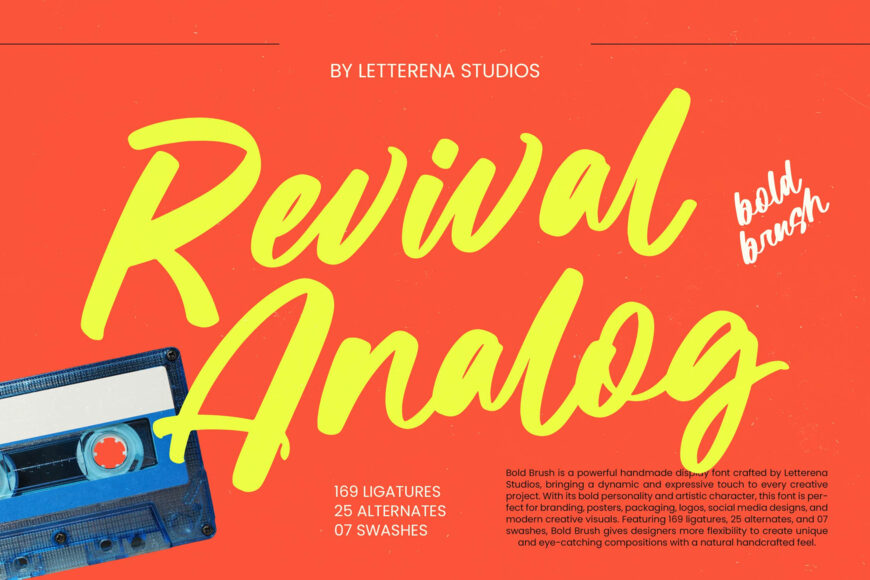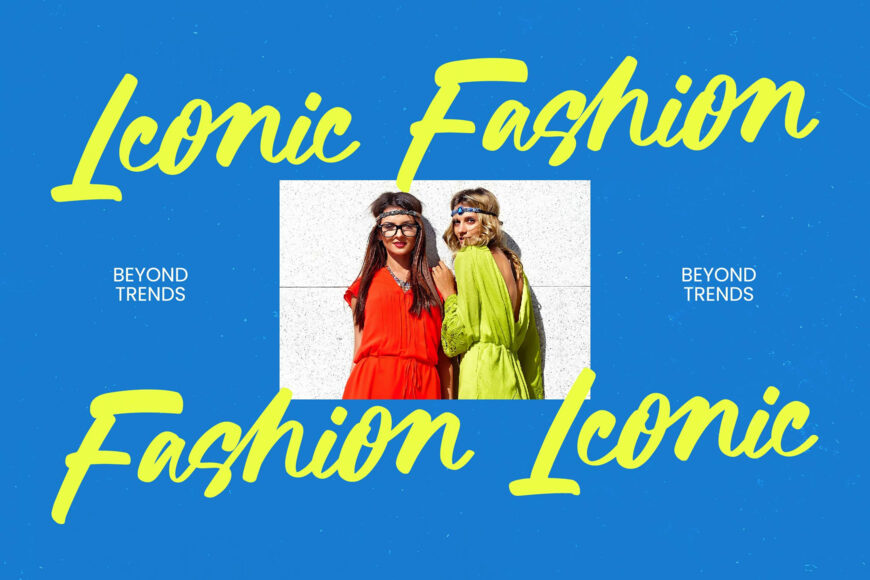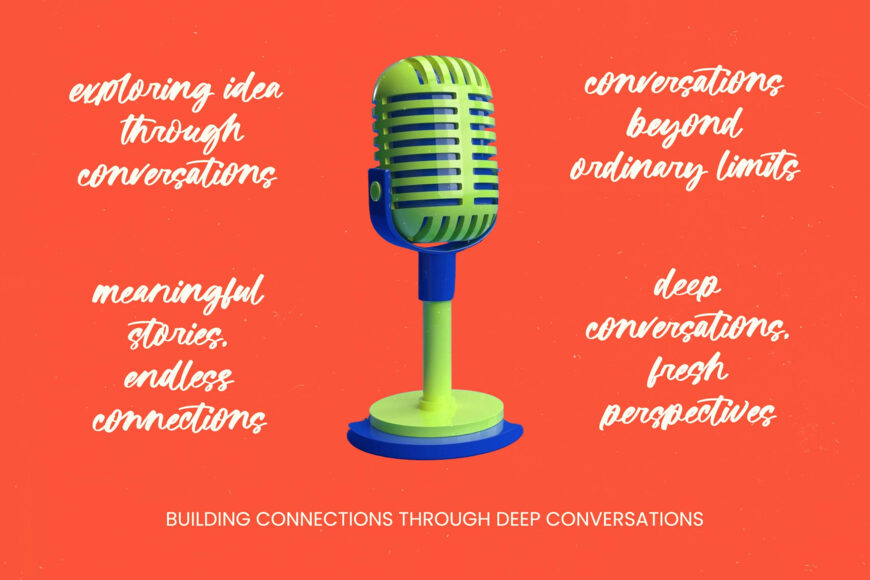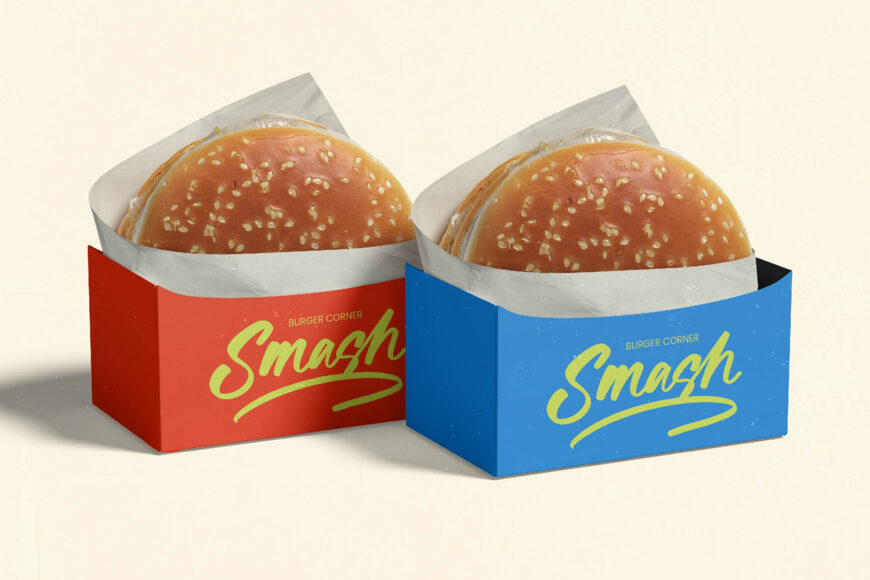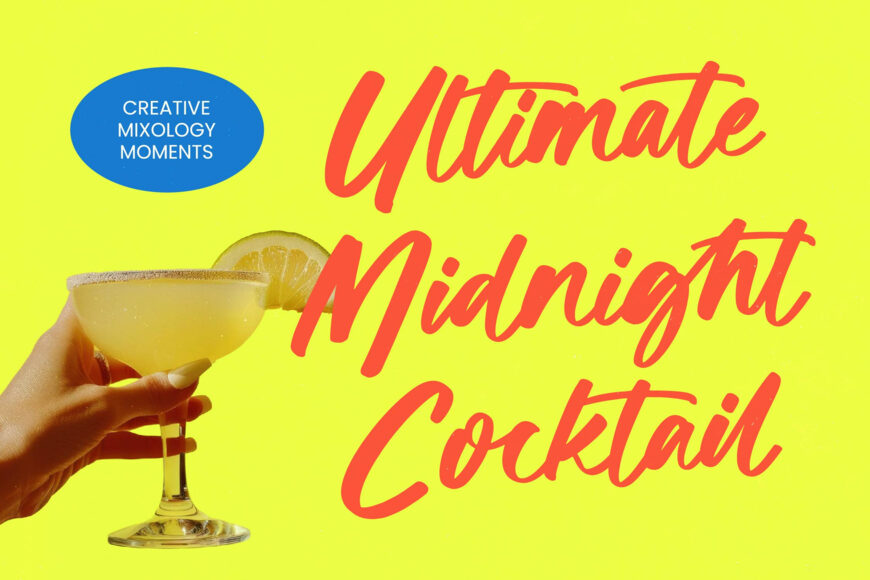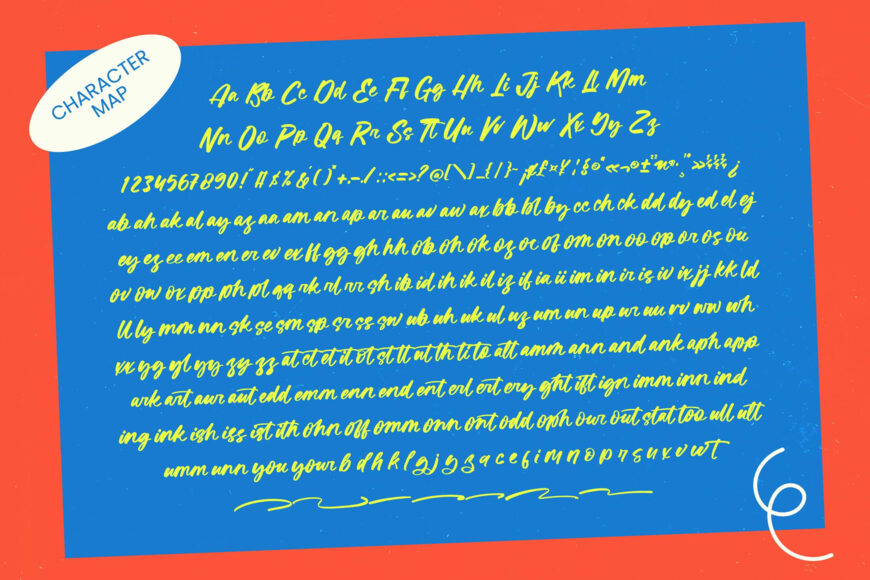
Ignite your designs with Revival Analog, a handcrafted bold brush display font by Letterena Studios. Combining organic brushwork with modern-vintage character, it brings bold energy, movement, and personality to every layout.
Ideal for lifestyle branding, luxury packaging, cinematic posters, logos, fashion editorials, and social media graphics, its expressive flourishes and textured finish add an authentic human touch. With multilingual support, 169 ligatures, and 25 alternates, this versatile typeface gives designers the freedom to create distinctive lettering for impactful projects across global markets.